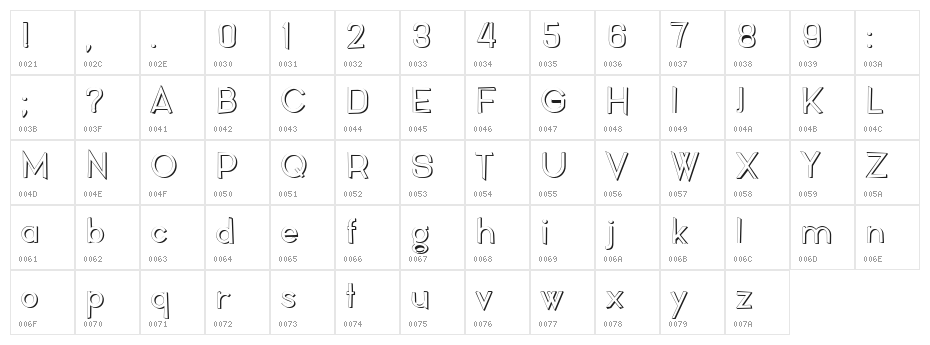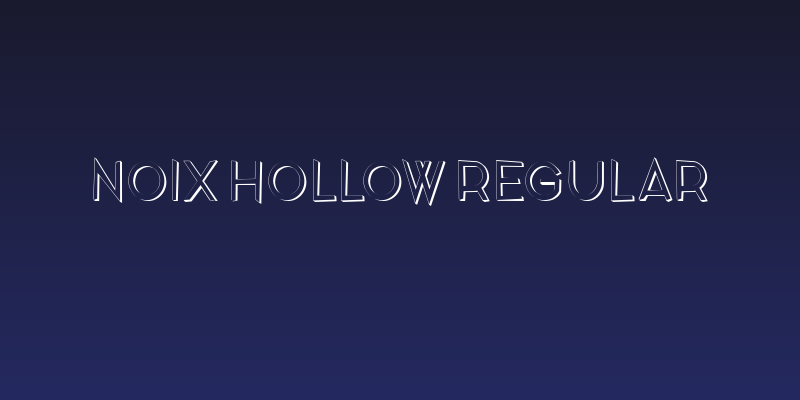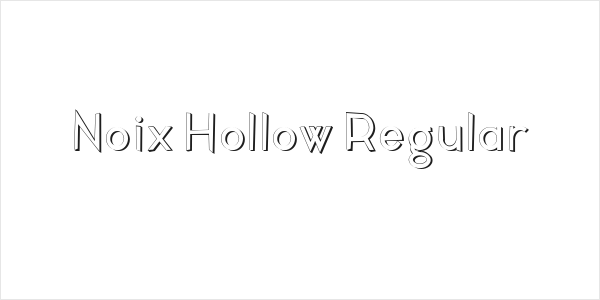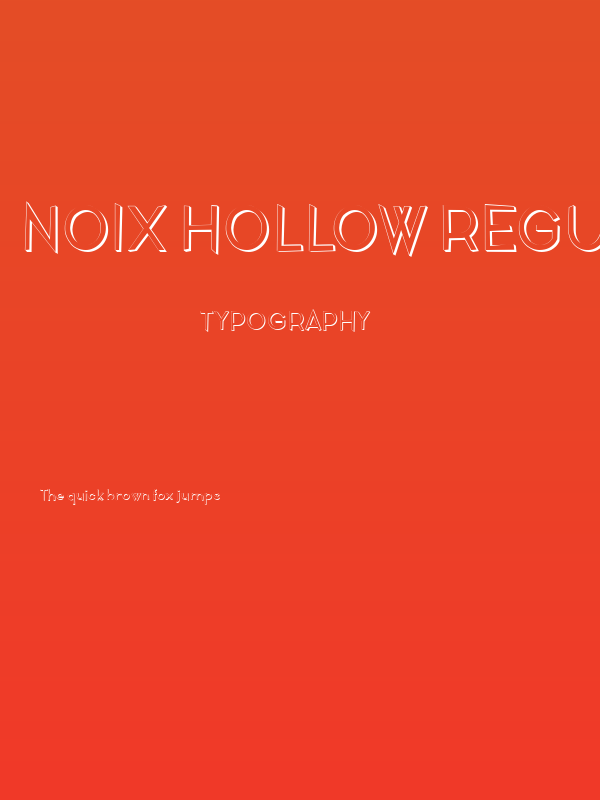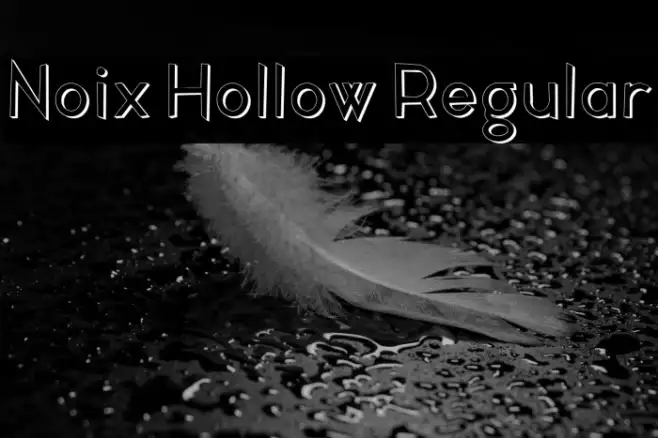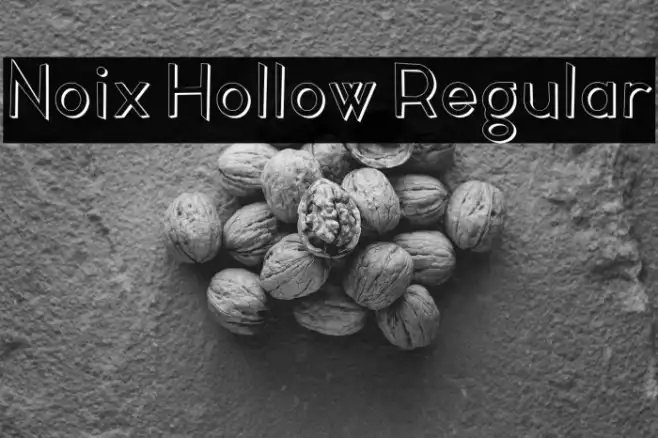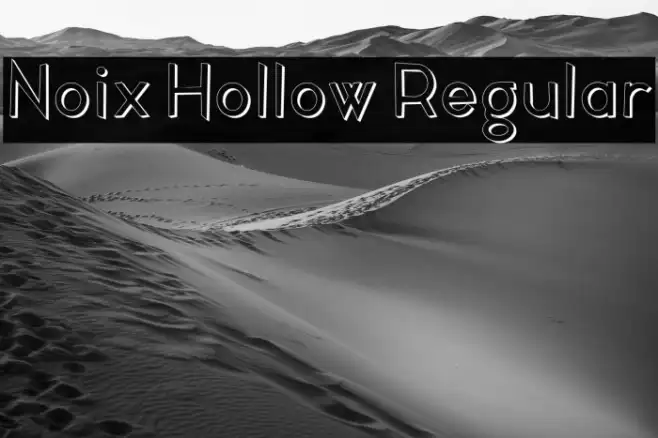
Noix Hollow Regular Font
Noix Hollow Regular Description
This font features a unique hollow design, where each character is outlined with a bold, black stroke, creating a striking contrast against the white interior. The uppercase and lowercase letters maintain a consistent geometric structure, with clean lines and sharp angles, giving it a modern and edgy appearance. The numerals and special characters follow the same design principles, ensuring uniformity across the entire character set. The font's hollow style adds a playful and artistic touch, making it stand out in any design project.
| Proposed Projects | Ideal for creative projects such as posters, logos, and headlines where a bold, artistic statement is desired. |